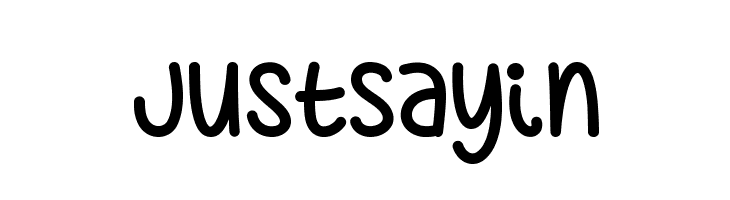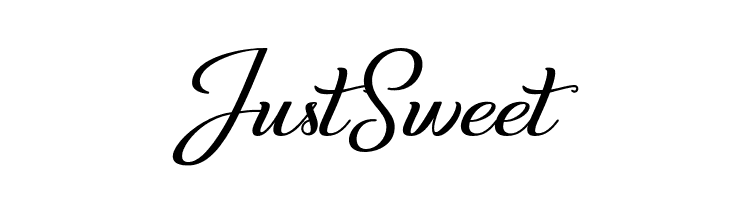
A bold, perforated font with a textured, edgy style.
A playful, bold serif font with a whimsical, hand-drawn style.
A bold, dynamic font with a 3D shadow effect and playful structure.
A playful, handwritten font with rounded edges and a casual style.
A whimsical and artistic handwritten font with flowing, interconnected strokes.
A flowing, elegant script font with dynamic contrast and artistic curves.
A bold, expressive handwritten font with dynamic cursive strokes.